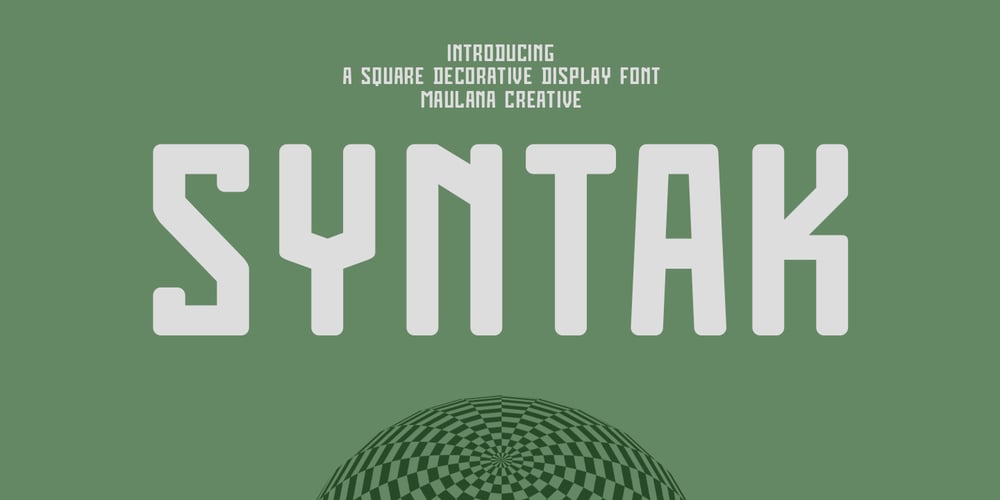
MC Syntak
MC Syntak font
MC Syntak Font Family was designed by Gilang Maulana and published by Maulana Creative. MC Syntak contains 1 styles and family package options. Syntak is an all caps Tech vibe square-is Display Sans font. Regular stroke, fun character with a bit of ligatures and alternates. To give you an extra creative work. Syntak font support multilingual more than 100+ language. This font is good for logo design, Social media, Movie Titles, Books Titles, a short text even a long text letter and good for your secondary text font with script or serif. Make a stunning work with Syntak font. Cheers, Maulana Creative